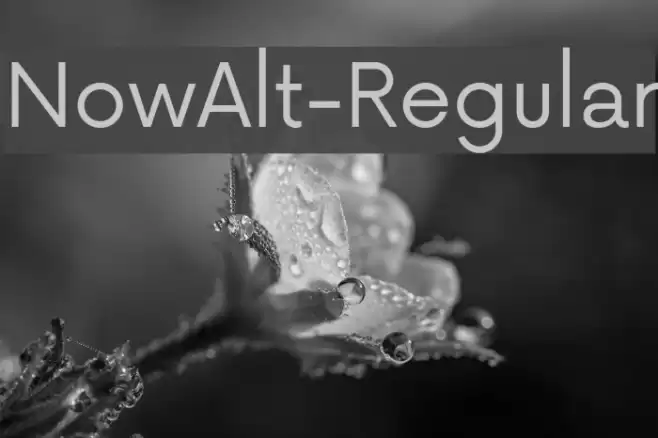
NowAlt-Regular Font
NowAlt-Regular Description
This typeface features a clean and modern sans-serif design, characterized by its geometric shapes and uniform stroke widths. The uppercase letters are bold and assertive, while the lowercase letters maintain a balanced and approachable appearance. The numerals are clear and easily distinguishable, making them suitable for various applications. The special characters are well-integrated, maintaining the font's overall aesthetic. This font's simplicity and clarity make it versatile for both digital and print media.
A modern, geometric sans-serif typeface with clean lines and uniform strokes from Uncategorized fonts.